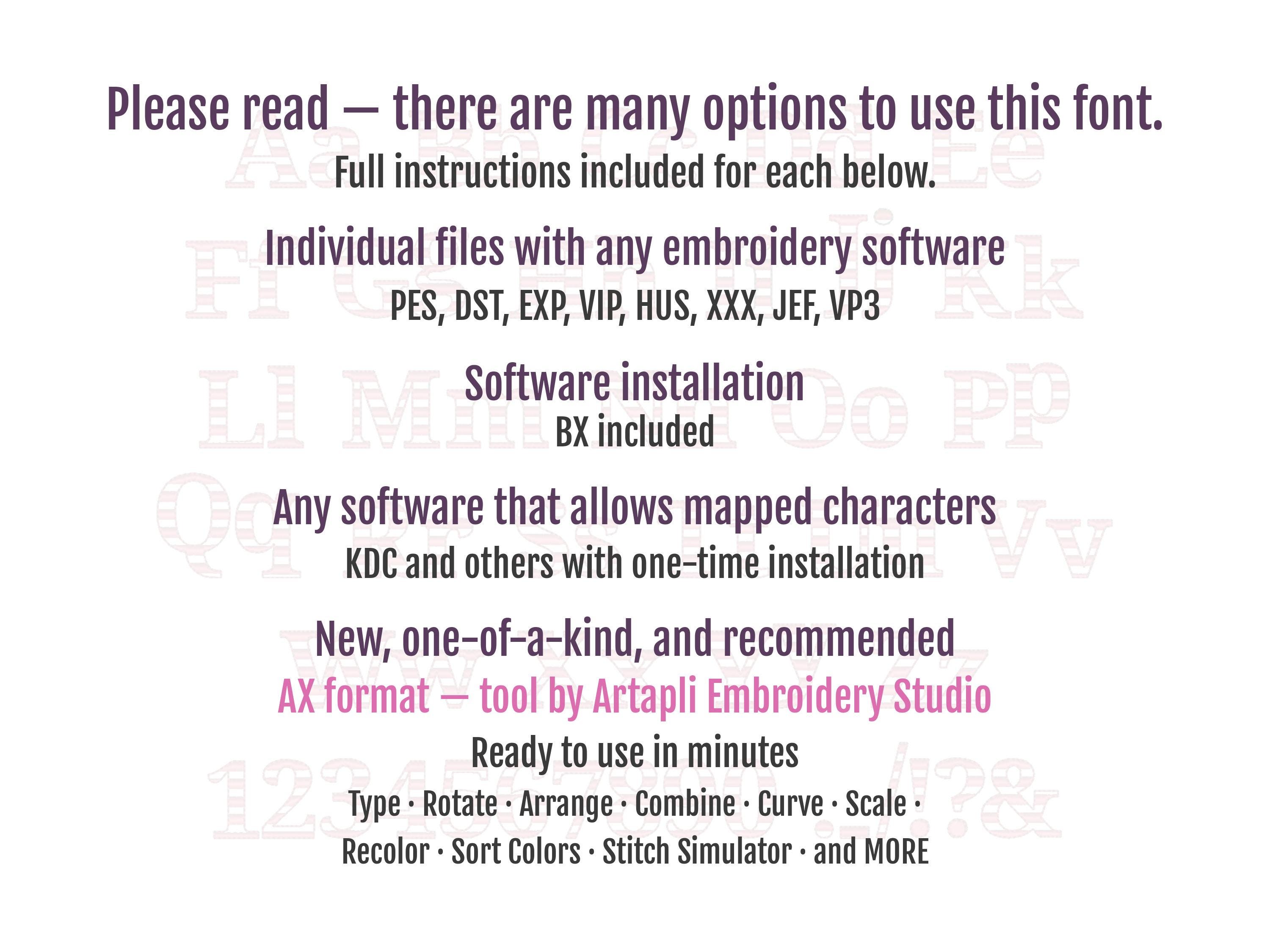
Only Stripes Block Font machine embroidery designs alphabet letters striped letters monogram block font patterned stripe Alphabet
Uppercase and lowercase letters, numbers, and punctuation.
The font is transparent, it is not full stitched, but the stripes only. The background fabric looks through. Stunning effect!